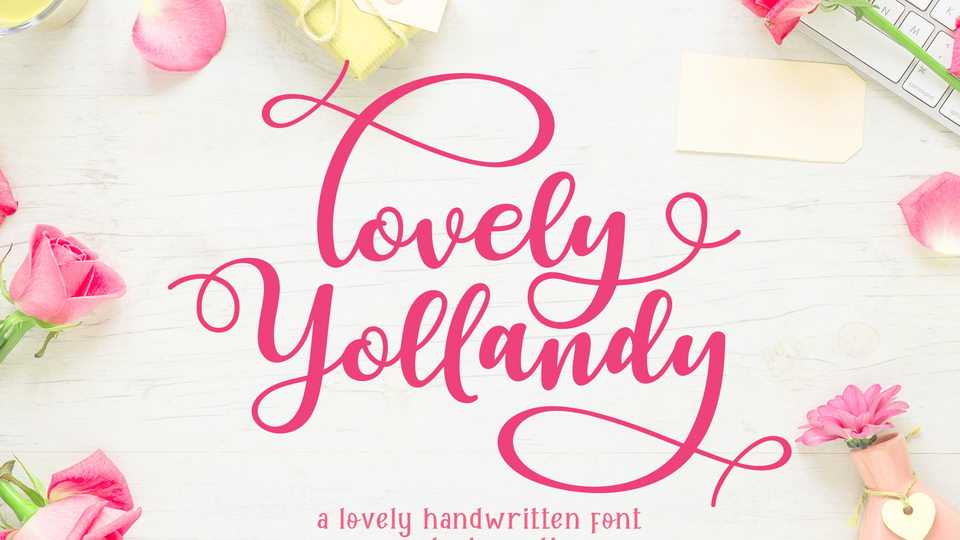
Download Lovely Yollandy font, a beautiful modern calligraphy script with lovely swirls. Lovely Yollandy is perfect for greeting cards, branding, stationery design, social media, wedding invitation, magazine layouts, prints and more!
Designer: Wandani Creative